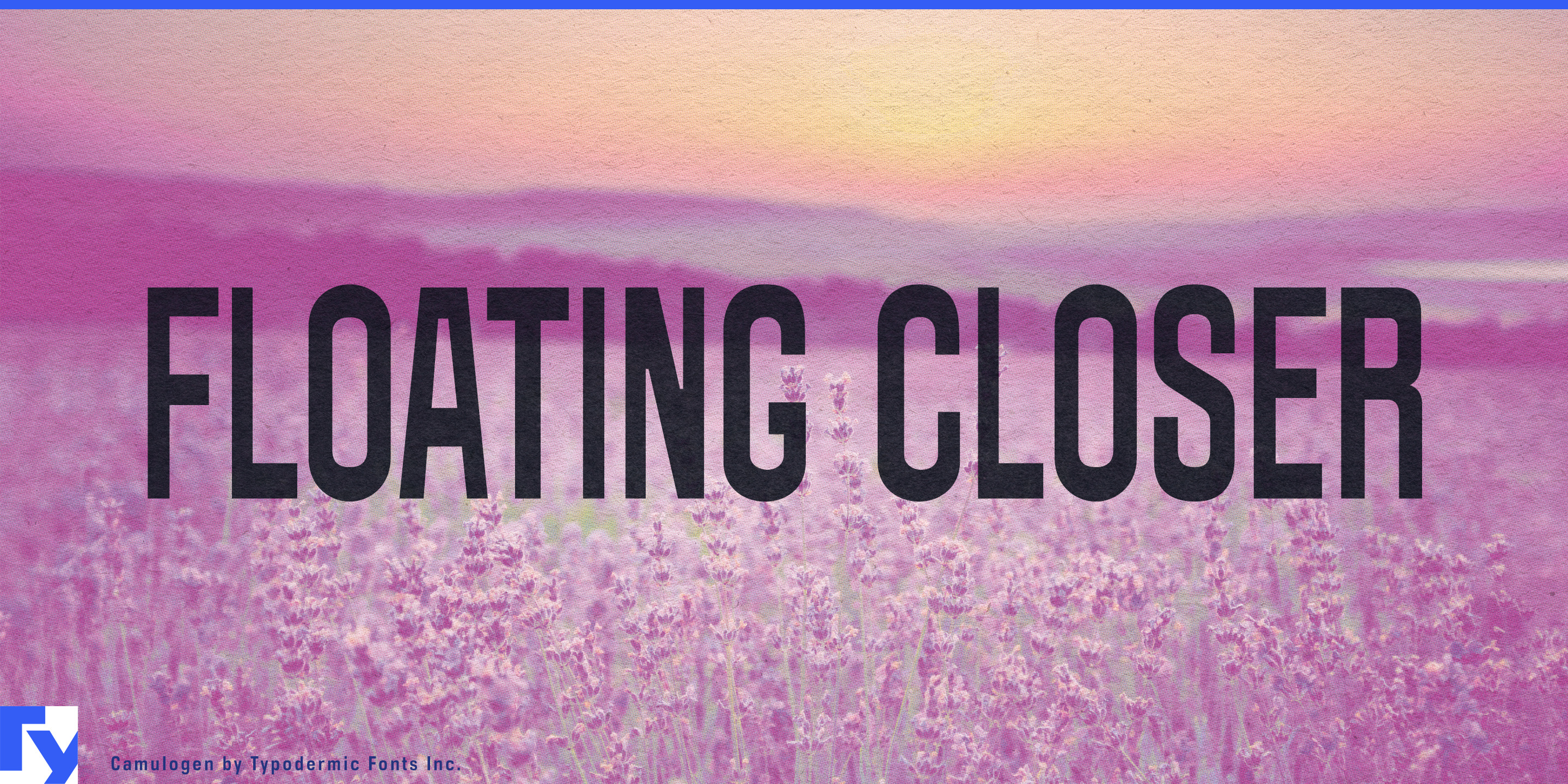
Camulogen
Camulogen distills the impact of late 19th-century French poster lettering into a compact, all-caps display face built for bold statements. Its full-bodied forms pack maximum weight into tight spaces, while roughened edges echo the texture of vintage lithographs and hand-cut type, bringing a tangible sense of history to the page.
Originally inspired by the striking titling styles seen on Belle ?poque posters and advertisements, Camulogen combines straightforward geometry with small idiosyncrasies that keep it from feeling mechanical. The result is a typeface that can carry the authority of a century-old headline while still feeling alive in contemporary layouts.
Camulogen excels where clarity and presence are non-negotiable: arts and cultural event branding, wine or spirits packaging, boutique hotel identities, festival posters, experiential retail environments, and any setting that calls for short, powerful lines of text to stand out. With broad Latin-based language support, it delivers the same commanding tone across many markets.
Bold, compact, and steeped in poster-era drama, Camulogen ensures your words arrive with the same confidence as the great headlines of Paris’s golden age.